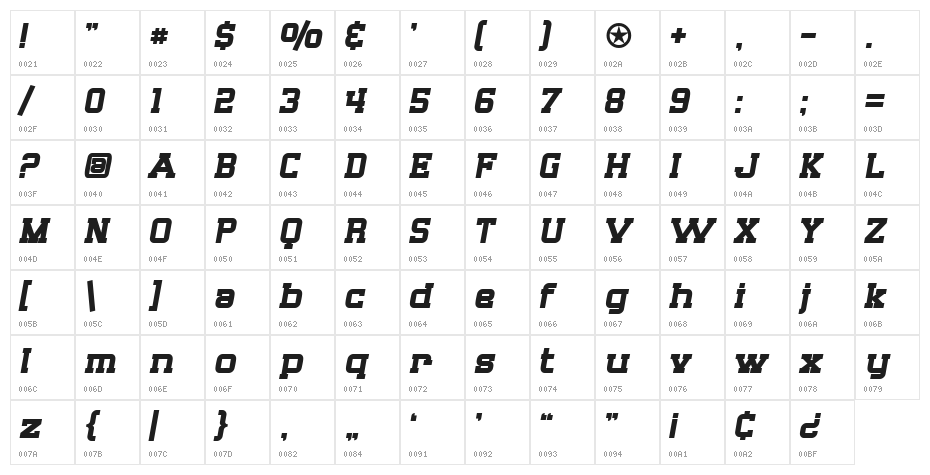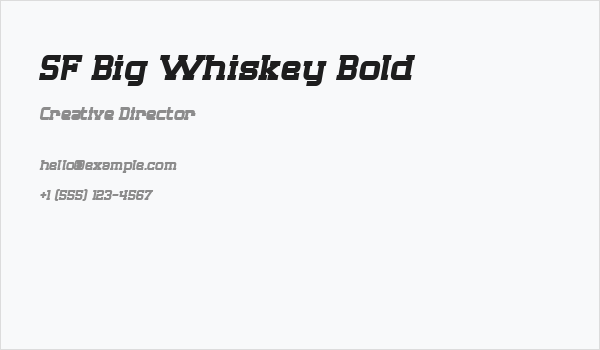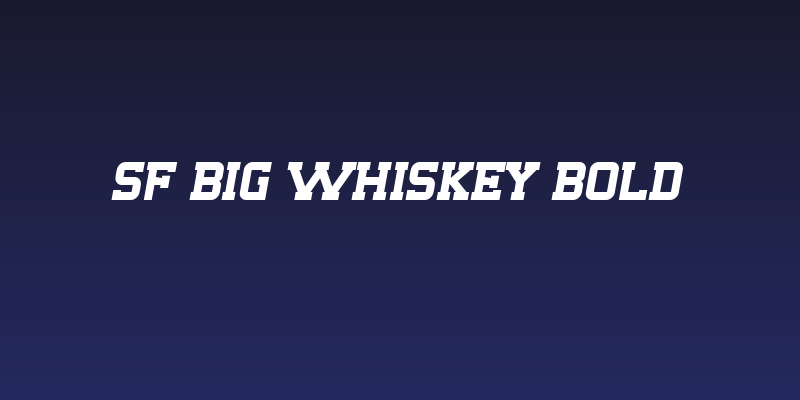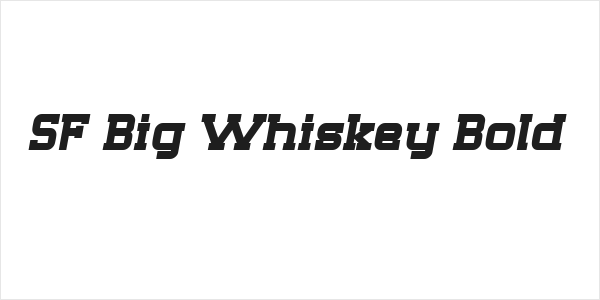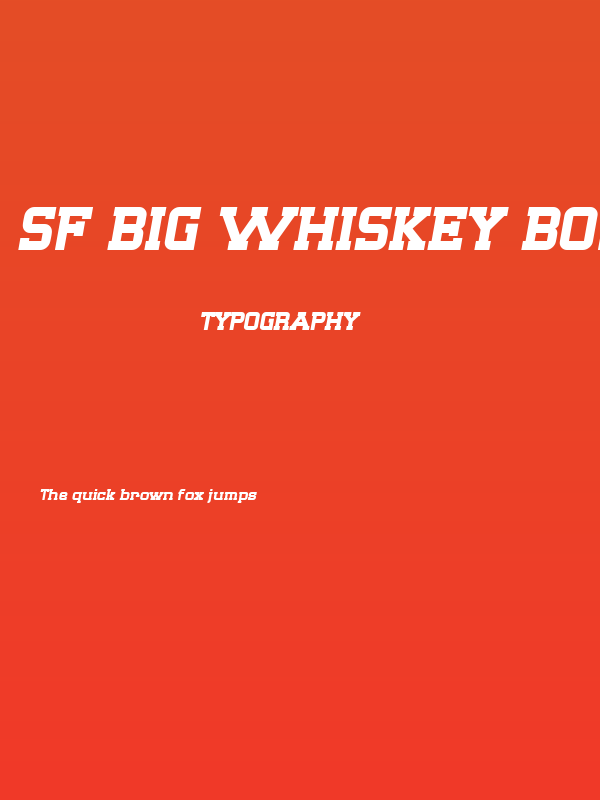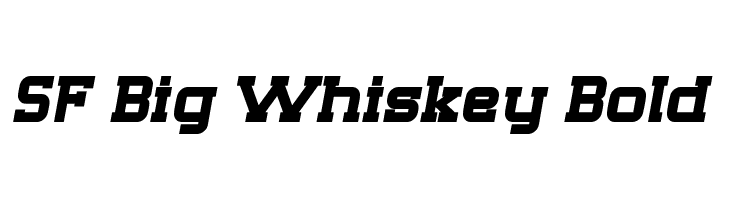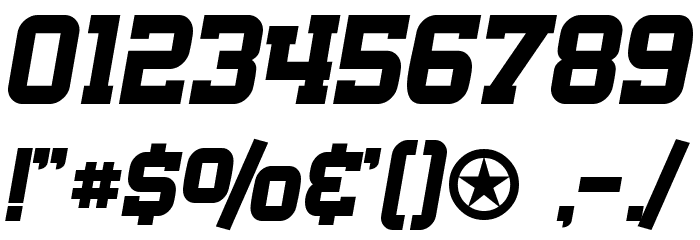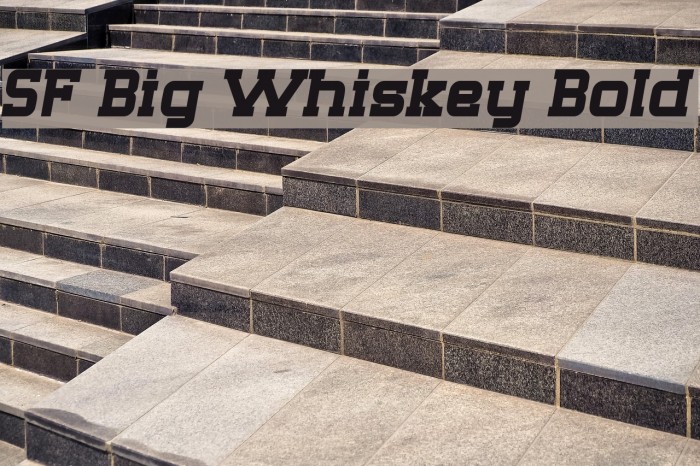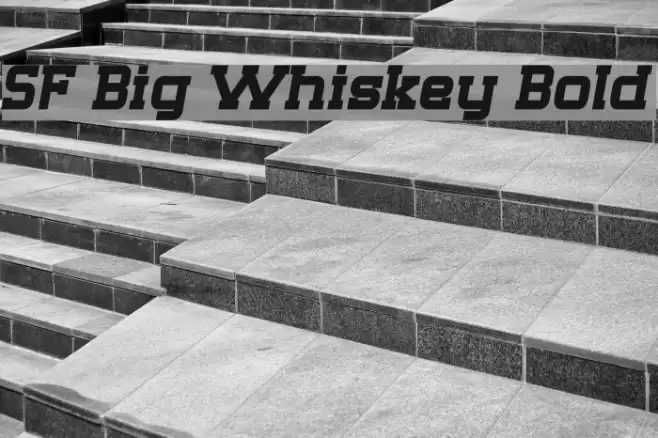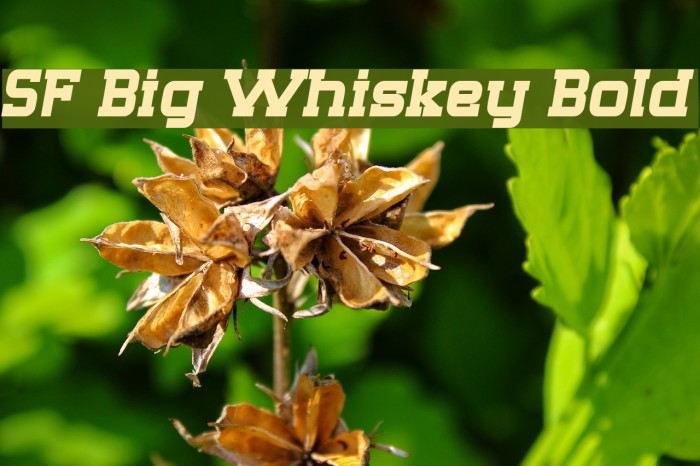
SF Big Whiskey Bold Font
SF Big Whiskey Bold Description
This font features a bold and dynamic style with a strong presence. The characters are designed with a slight slant, giving them a sense of motion and energy. The strokes are thick and consistent, providing a robust and impactful appearance. The uppercase letters are particularly striking, with sharp angles and a geometric influence. The lowercase letters maintain the same boldness, ensuring readability and uniformity. Numbers and special characters are crafted with the same attention to detail, making them suitable for a variety of uses. Overall, this font exudes confidence and modernity, making it ideal for projects that require a strong visual impact.
| Proposed Projects | Ideal for branding, posters, headlines, and any project requiring a bold statement. |